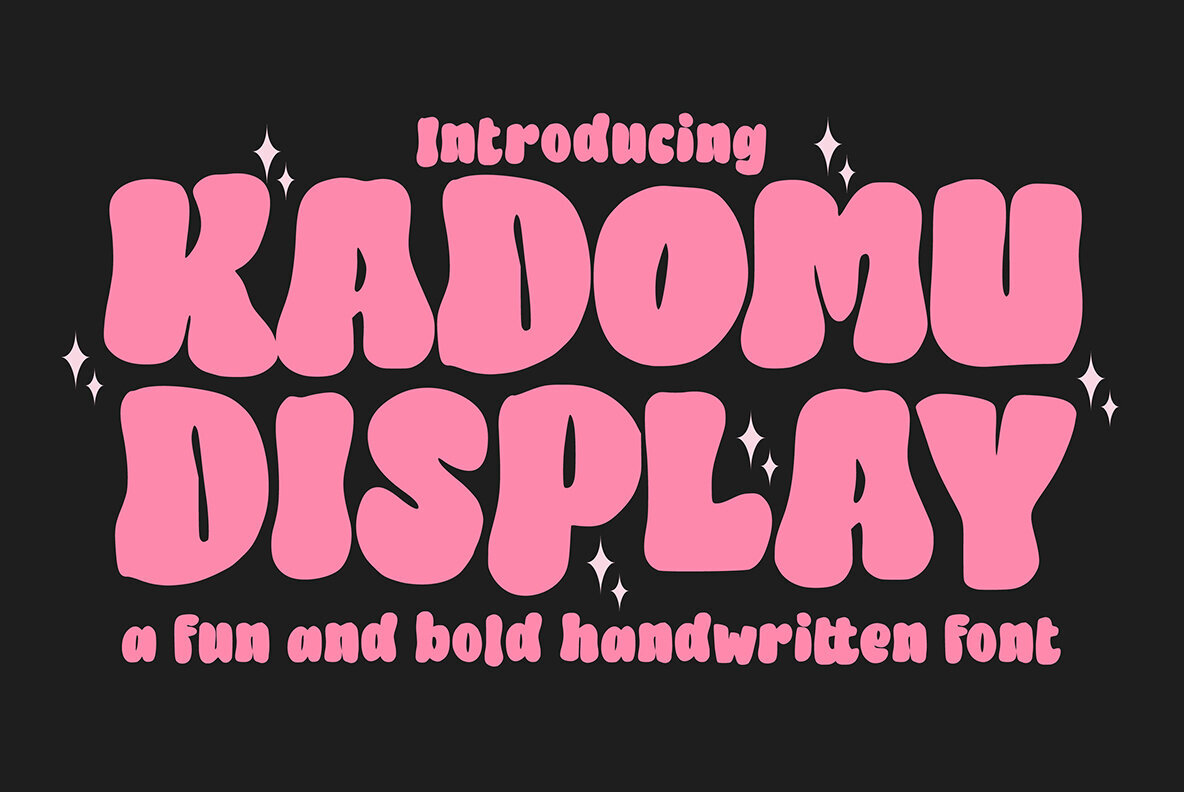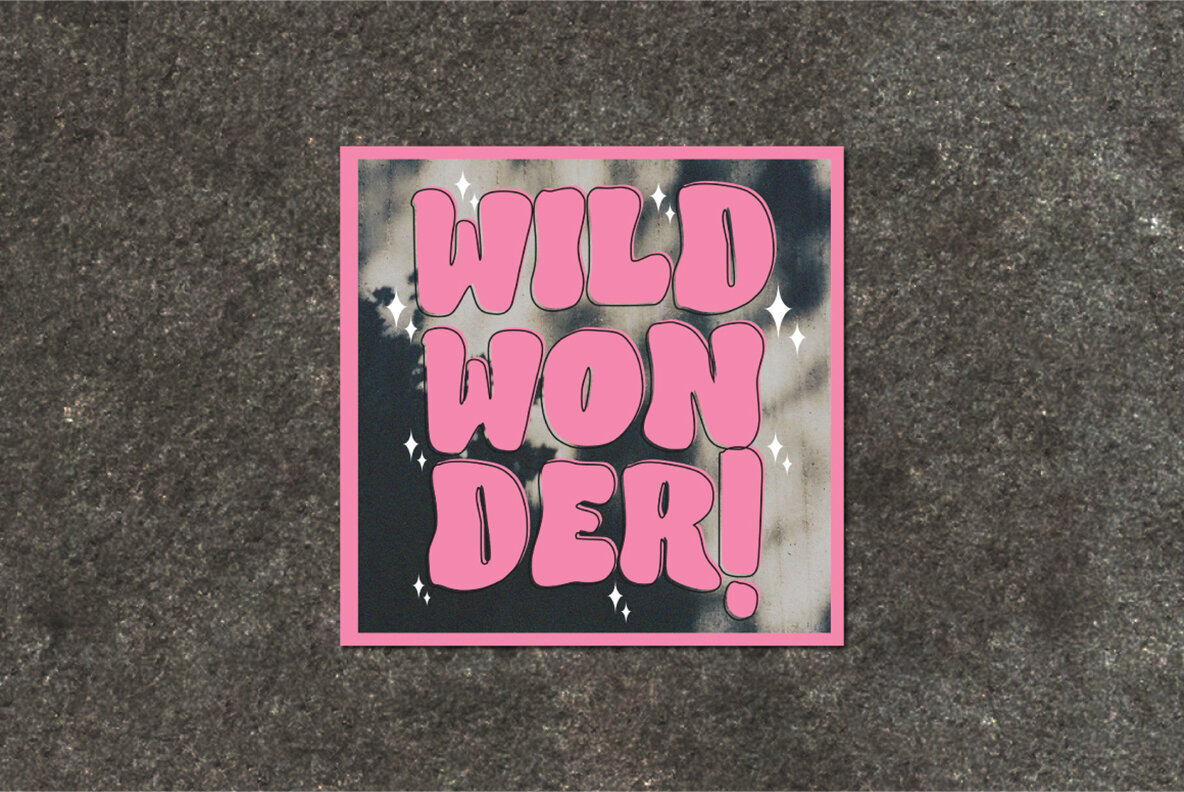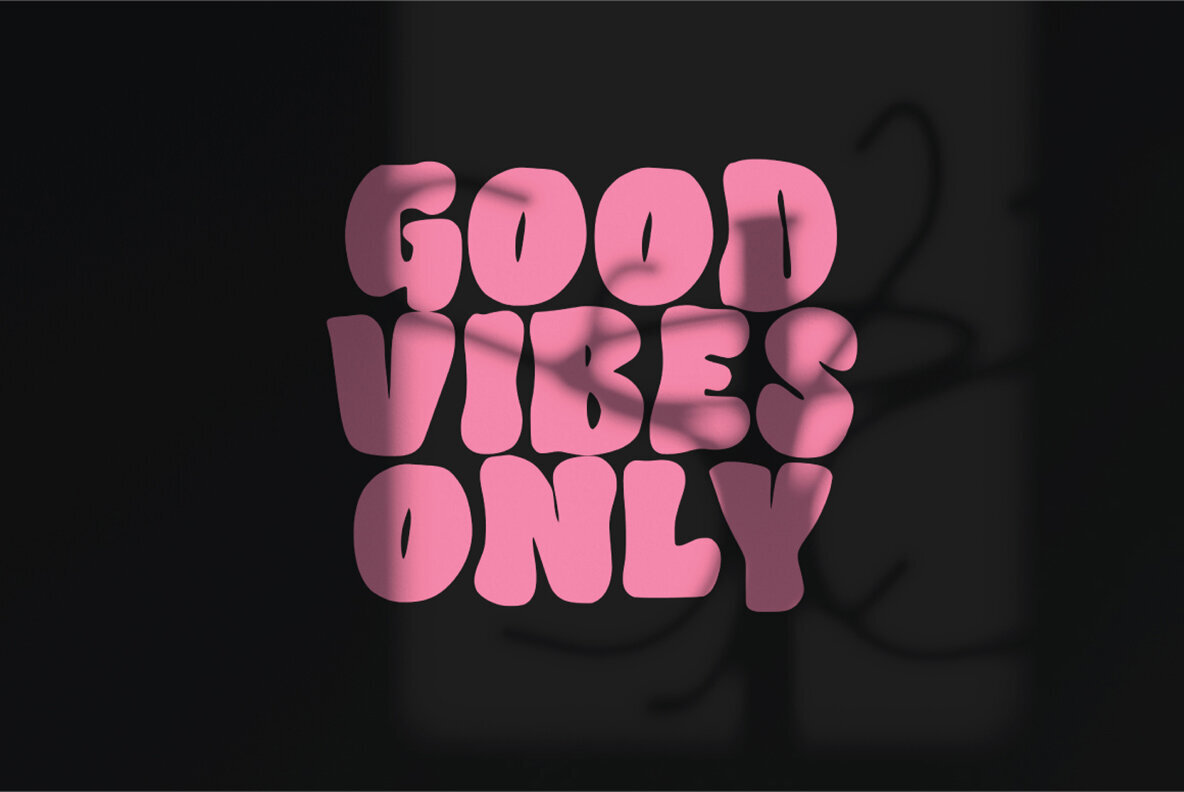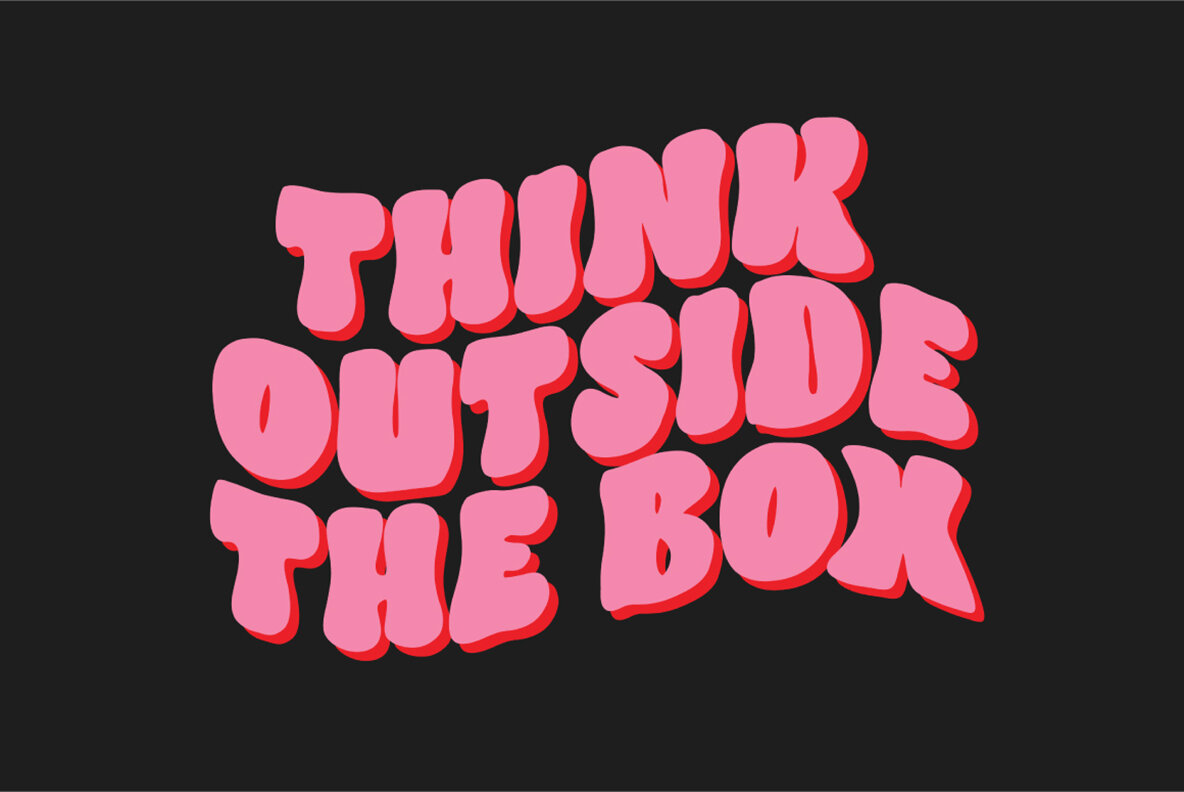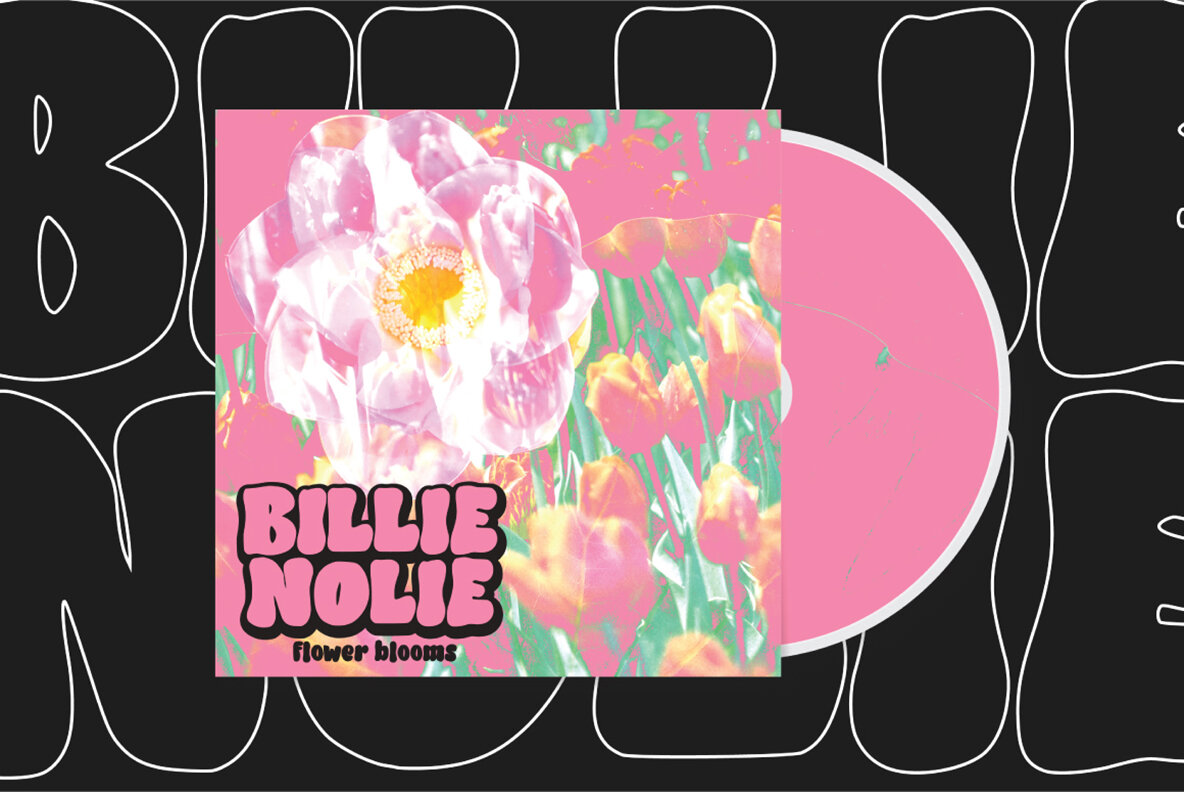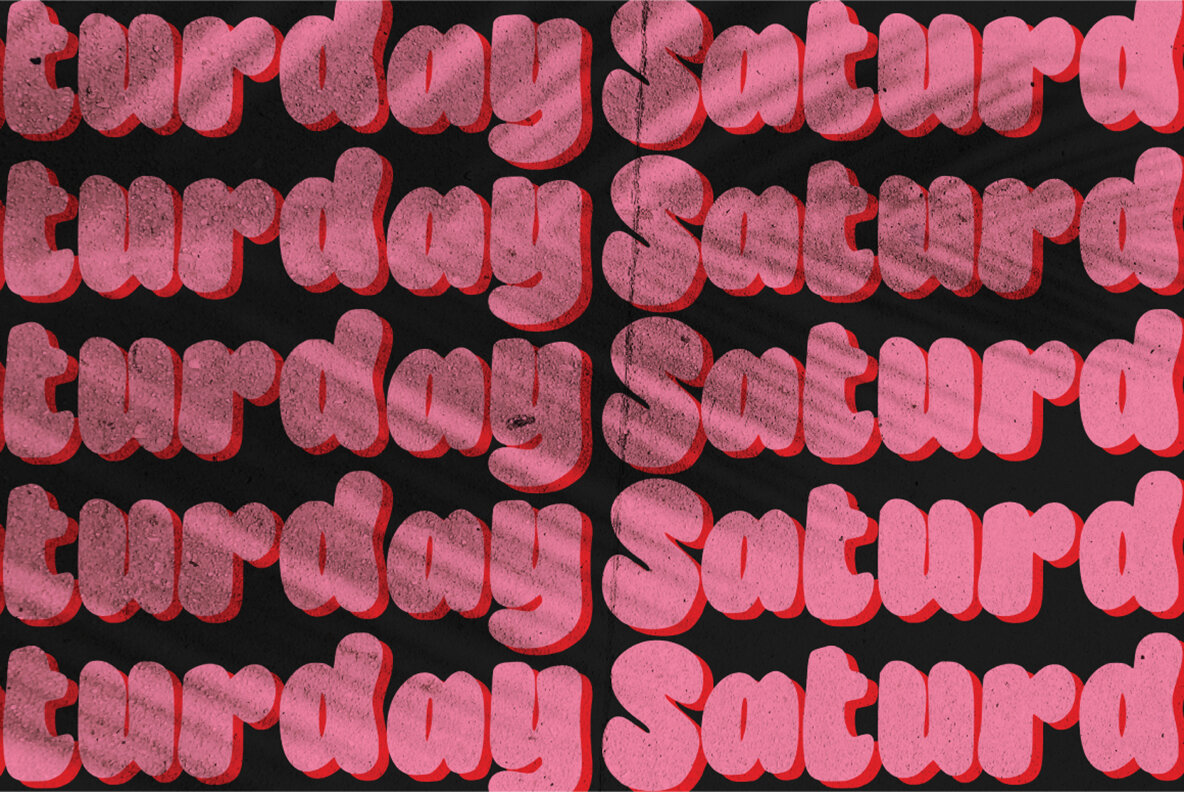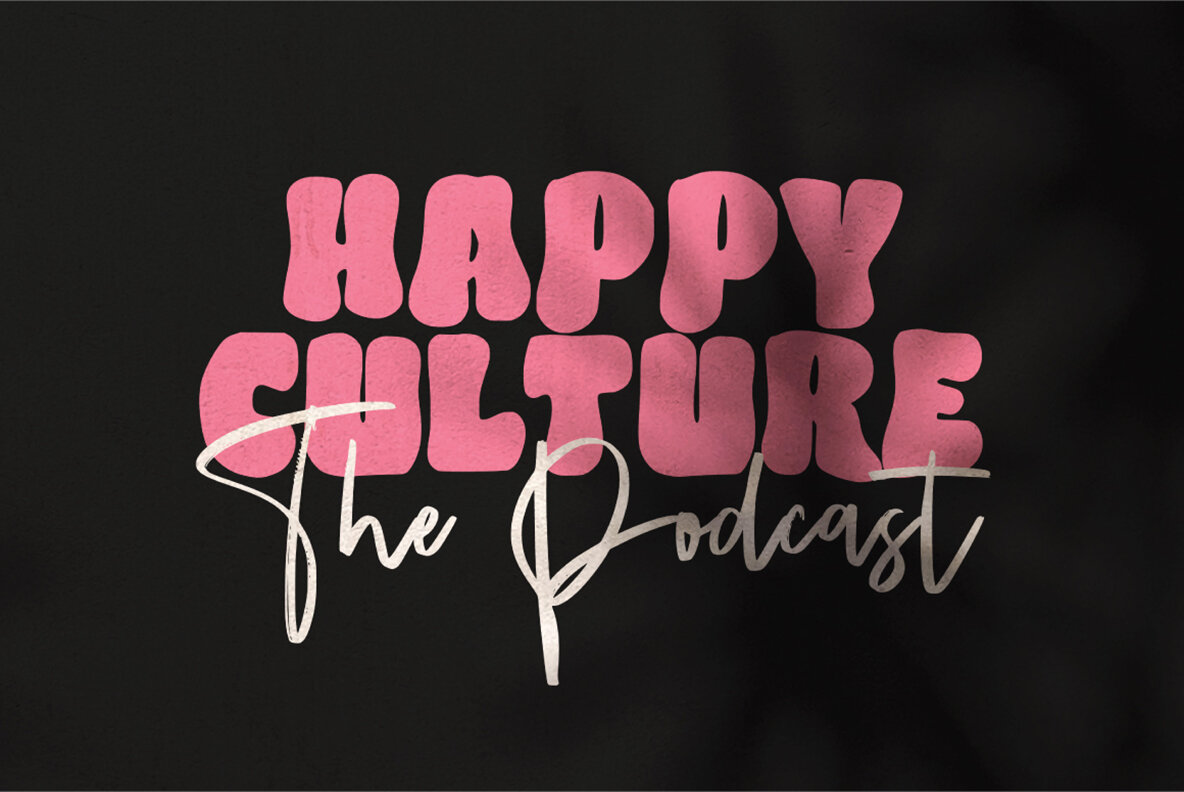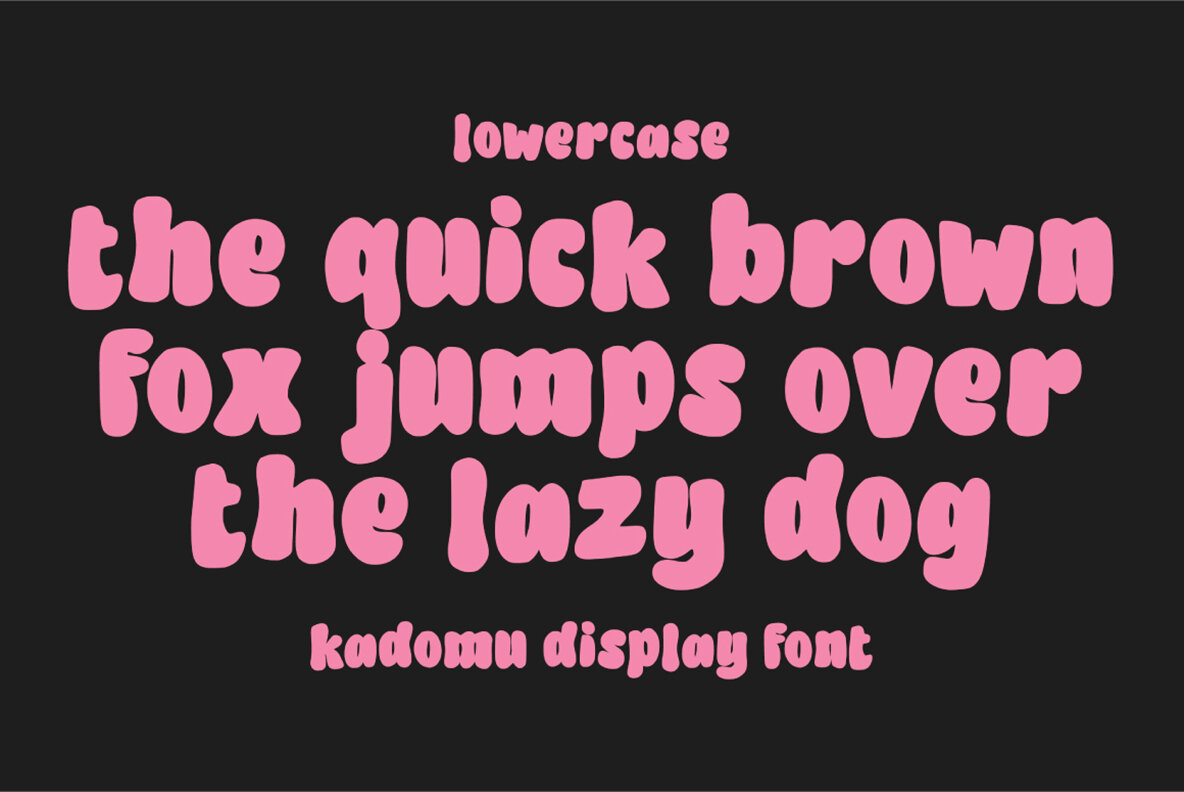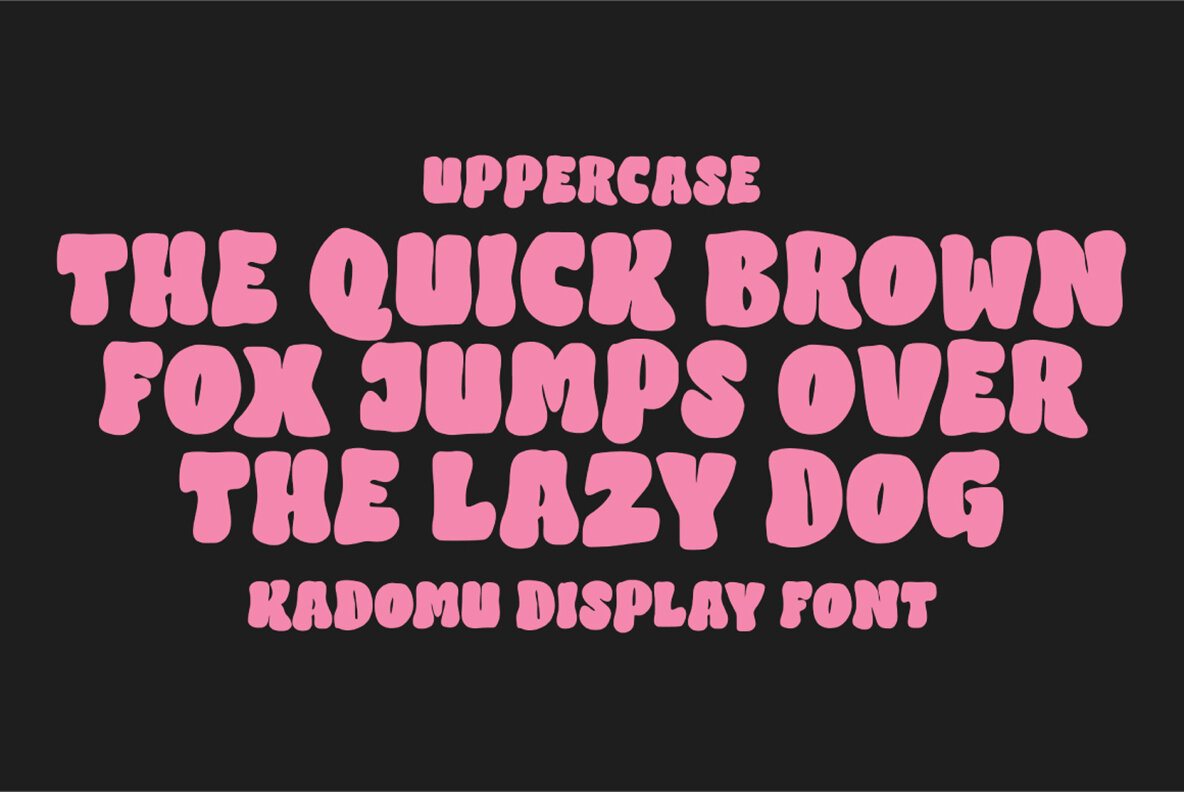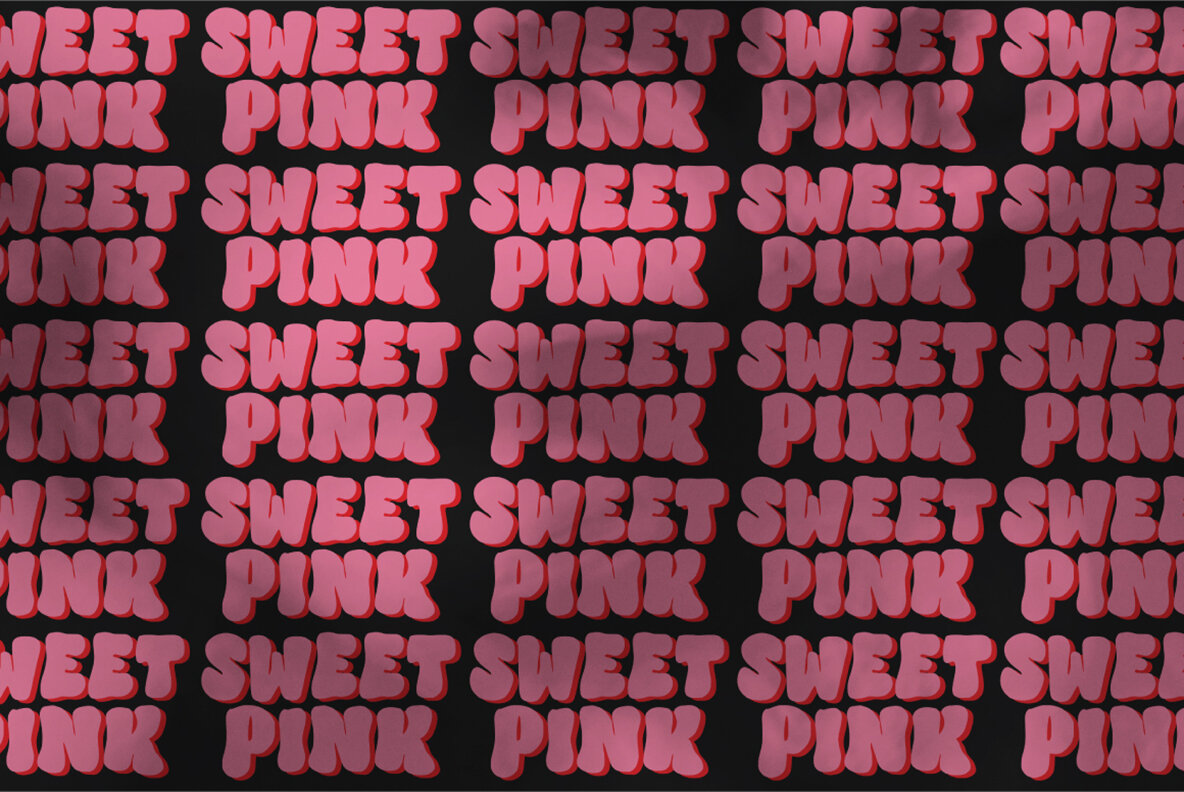
Kadomu Font
Kadomu Display Regular
Kadomu is a stunning display typeface that embodies a handmade signature style, accented with decorative characters and a dynamic, dancing baseline. Perfectly suited for invitations, greeting cards, branding materials, business cards, quotes, posters, and more, Kadomu adds a touch of elegance to any design project. With over 150 glyphs, this font offers unparalleled versatility, allowing personalized expressions in every design.